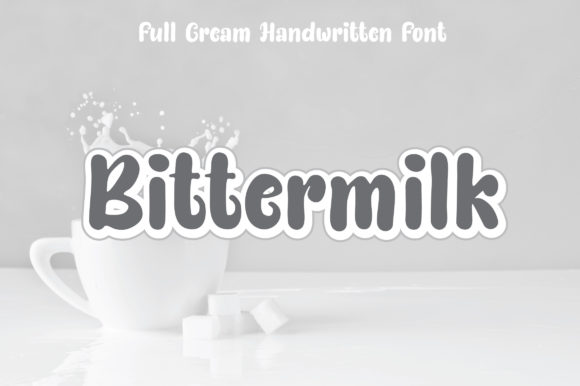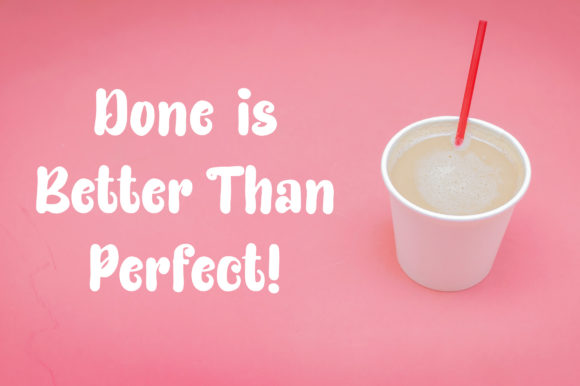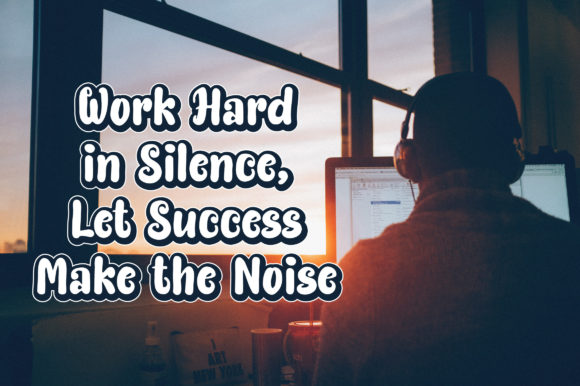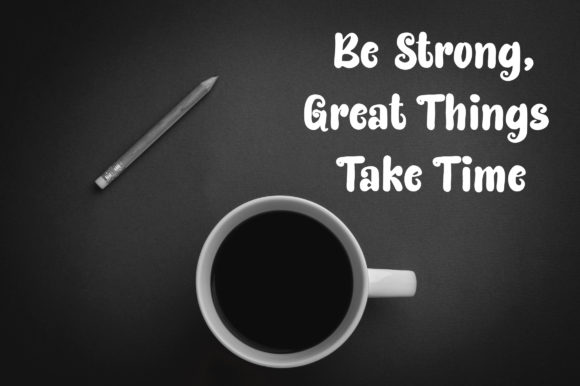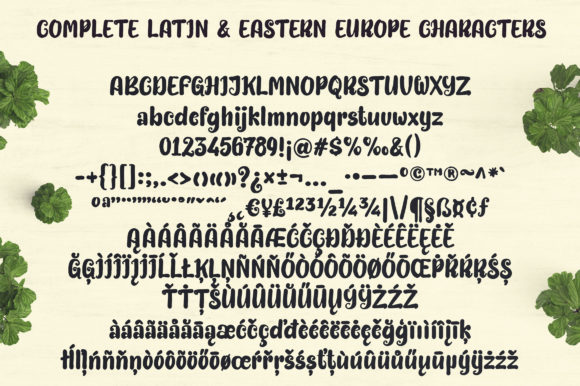
Bittermilk Font
About Bittermilk Font
Bittermilk is a delightful and bold handwritten font that exudes cuteness and charm. With its natural shape and striking appearance, it stands out as a versatile typeface that can bring a unique touch to your designs.
The font’s boldness contributes to its eye-catching quality, making it perfect for projects that demand attention and a touch of playfulness. Bittermilk’s cute aesthetic adds character and personality, creating a visually appealing impact on any design it graces.
Whether utilized in headers, titles, logos, or other creative elements, Bittermilk injects a sense of boldness and whimsy. Its handwritten style lends an authentic and organic feel, enhancing the overall visual appeal of your designs with a touch of character.
The versatility of Bittermilk shines through in its ability to adapt to various design contexts. Its natural shape allows it to seamlessly integrate into different styles, making it suitable for a wide range of applications. From branding to posters, Bittermilk adds a striking and distinctive element that catches the eye.
In summary, Bittermilk is more than just a font; it’s a design asset that brings cuteness and boldness to the forefront. Whether you’re aiming for a playful vibe or a design that stands out, Bittermilk’s natural shape and striking qualities make it a valuable choice for designers looking to infuse their creations with character and visual impact.